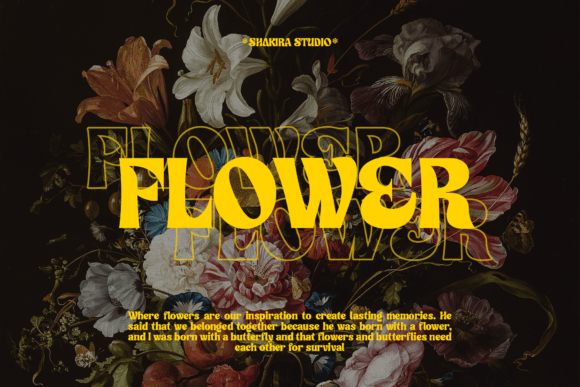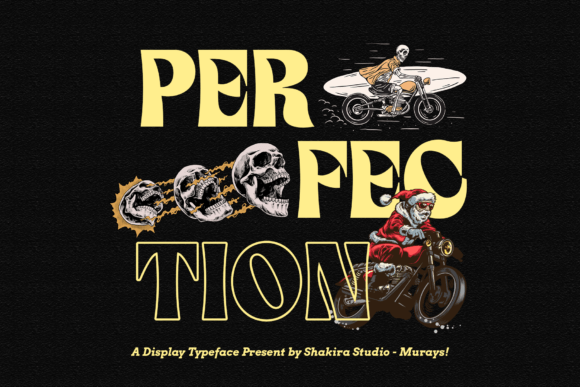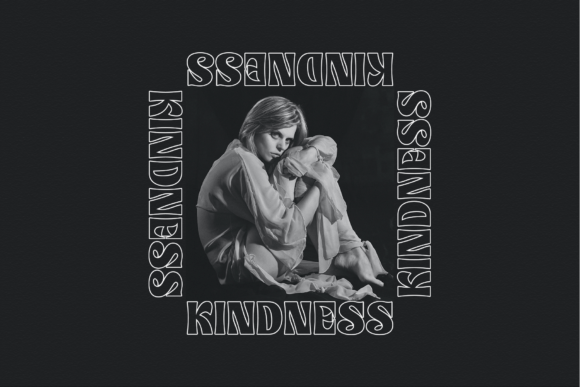
Introduction to Murays Font
Murays is a Retro Display Serif Font.
Create bold, gorgeous headlines and elegant designs with a vintage flair Its contrasting lines and curved terminals give a sleek, elegant look to logos, holiday cards, wedding invitations, quotes, advertisements, and more.
Key Features of Murays Font